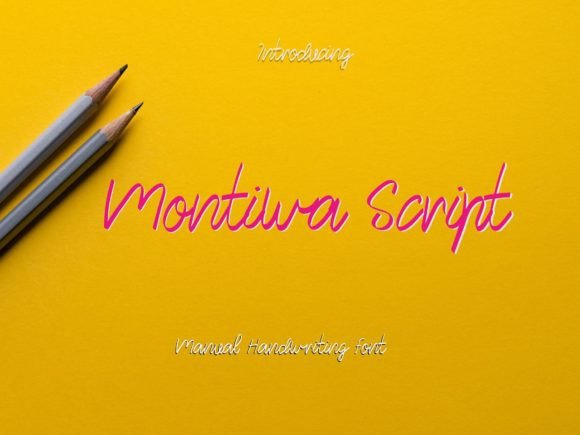
Introducing Montiwa Font, the captivating script font that will ignite your creativity and elevate your projects to new heights. Step into a realm of endless possibilities where your words will dance with grace and charm.
Montiwa's enchanting curves and delicate strokes evoke a sense of playfulness and joy. It's as if each letter has been lovingly crafted by a skilled calligrapher, infusing your designs with a touch of timeless elegance.
Whether you're crafting a memorable CV that showcases your unique talents or designing invitations that exude warmth and sophistication, Montiwa is the perfect choice. Its versatility knows no bounds, inviting you to explore a world of creative expression.
Imagine your CV adorned with the graceful lines of Montiwa, creating an unforgettable first impression that will leave recruiters spellbound. Or picture invitations that whisper elegance and beckon guests to a truly special occasion.
With Montiwa Font, you'll discover a treasure trove of possibilities. Its charming nature will captivate hearts, while its versatility empowers you to tell your story with flair and imagination.
So, why settle for ordinary fonts when you can embrace the extraordinary? Choose Montiwa Font today and unlock the power to create designs that dance with joy and leave a lasting impression.